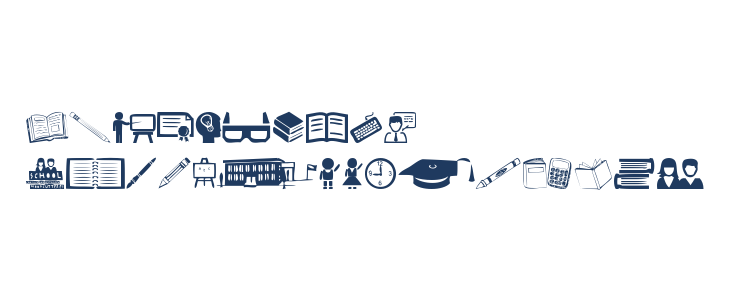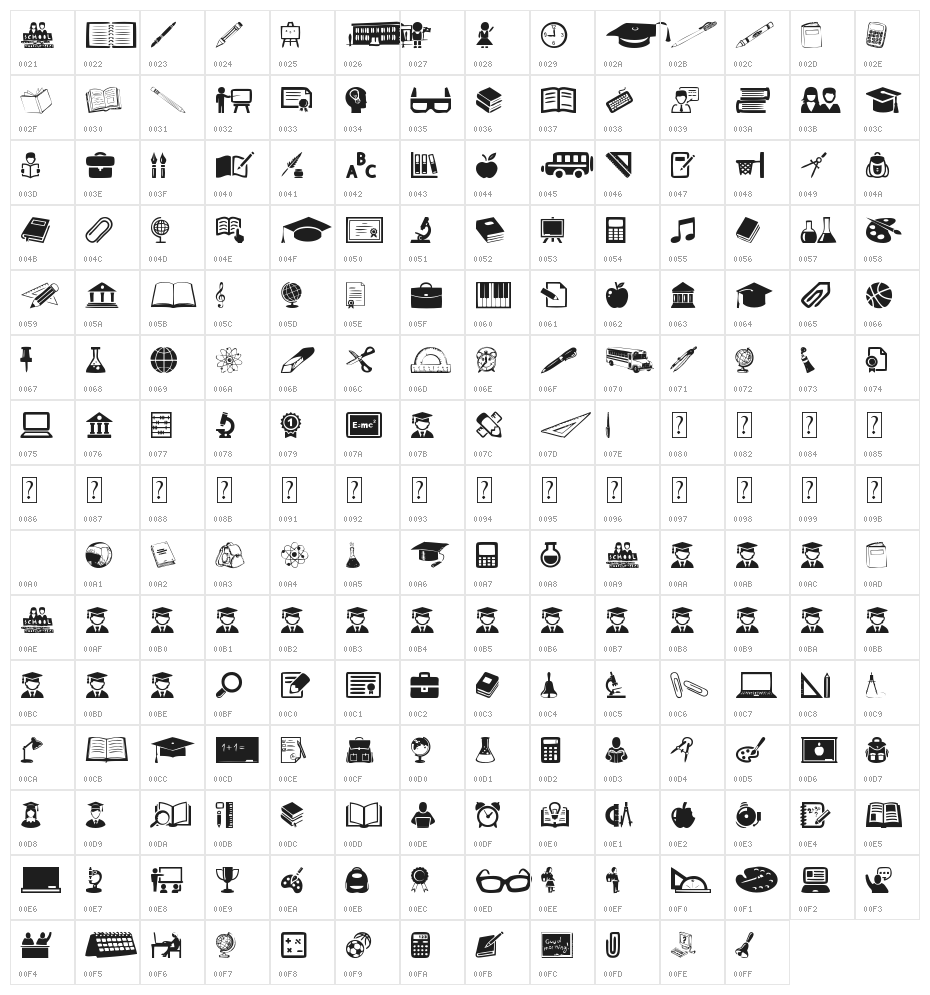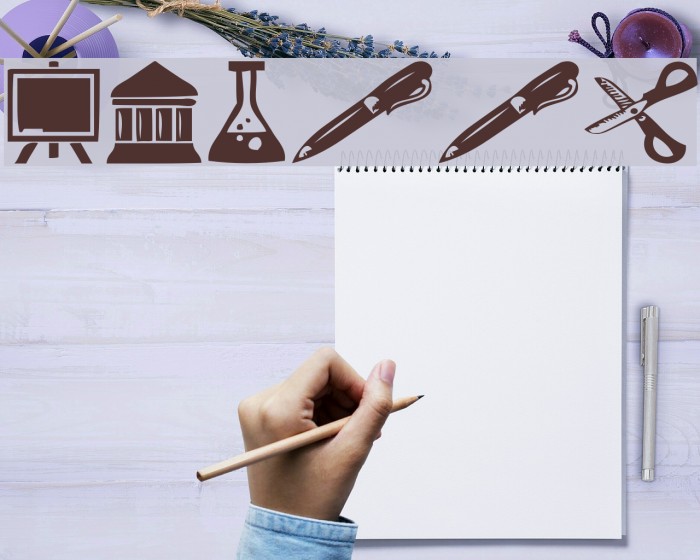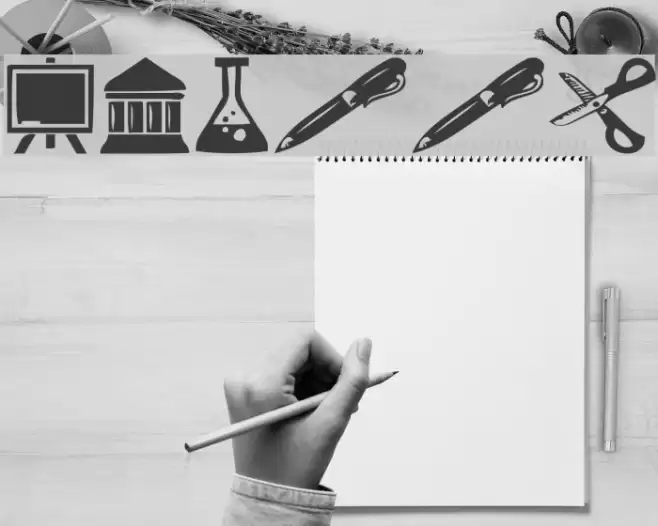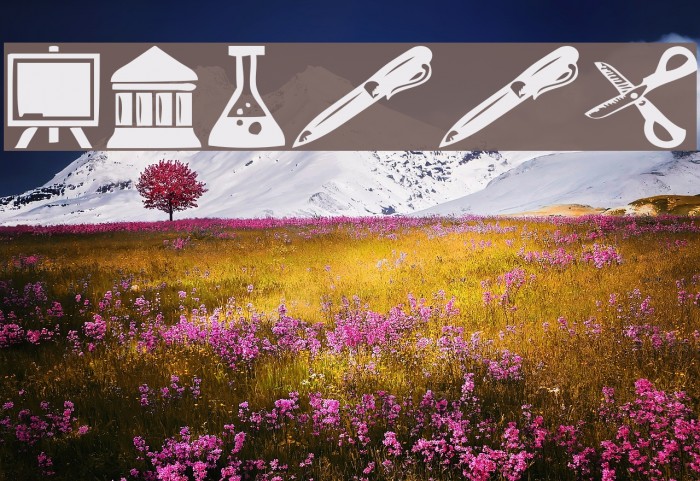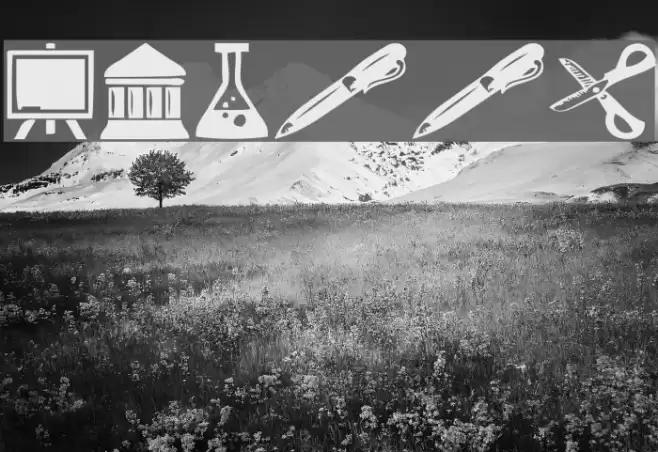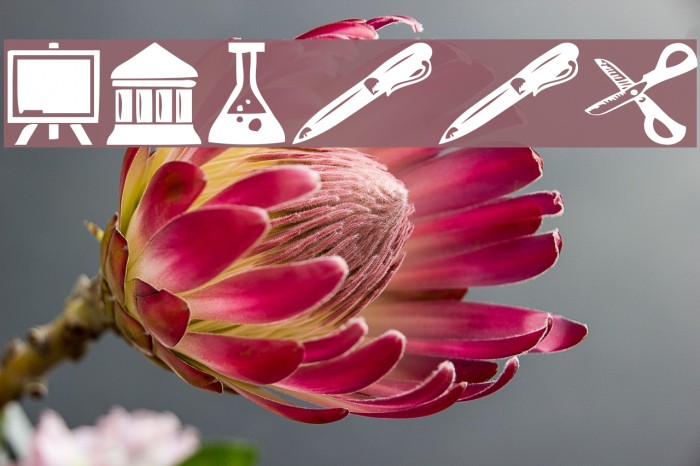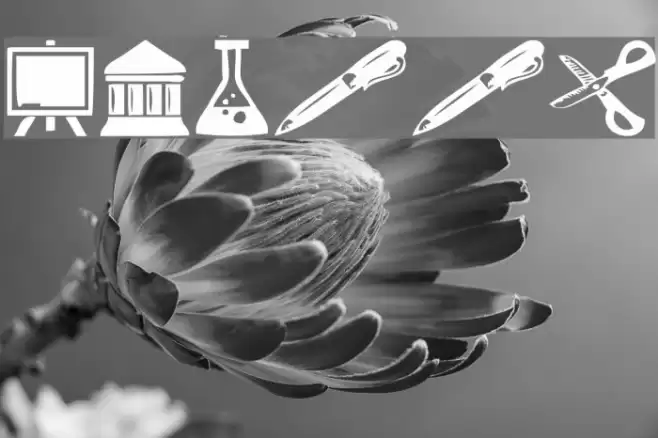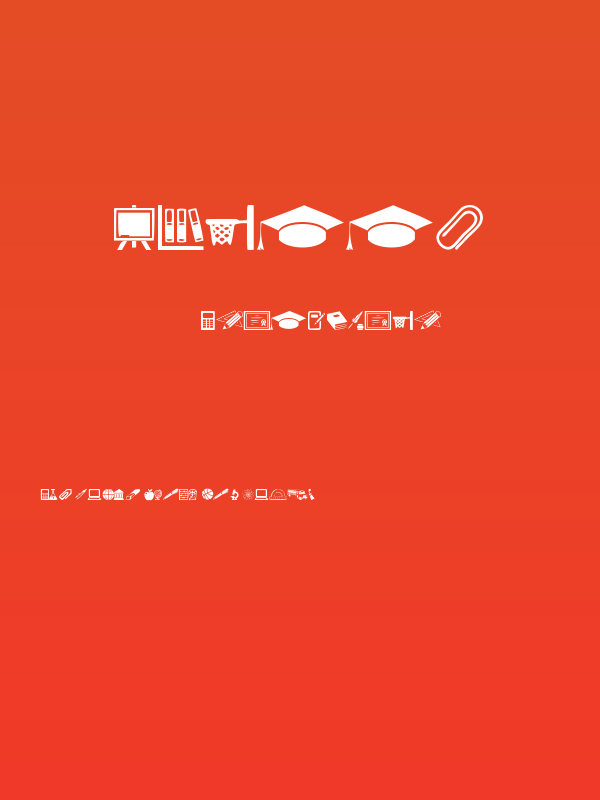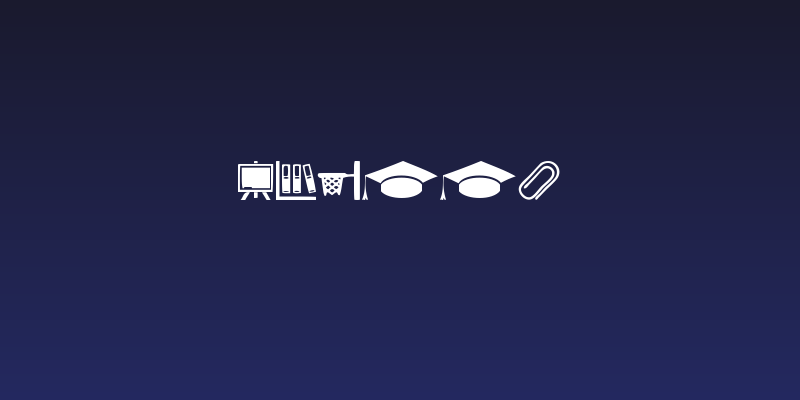
School Font
School Description
A collection of bold, high-contrast school-themed pictograms and icons, each representing various educational objects and concepts such as books, graduation caps, buses, globes, and scientific equipment. The icons are solid, filled, and highly legible, designed in a consistent, modern silhouette style.
| Use Case | Icons, Infographics, Educational materials, Digital interfaces |
| Proposed Projects | Educational websites, classroom posters, school newsletters, e-learning platforms, infographics, mobile apps. |